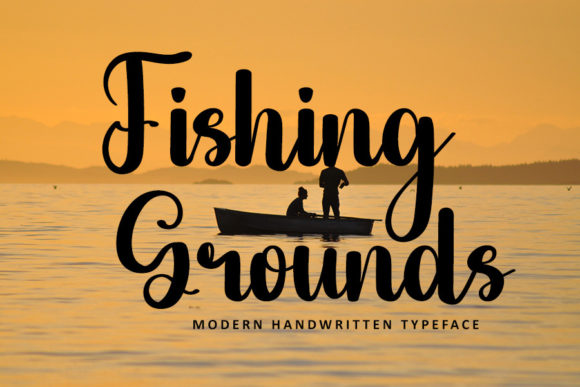
Fishing Grounds Font: Elevate Your Designs with Elegant Handwritten Style
In the world of typography, a font can make or break a design. For crafters, designers, and DIY enthusiasts, finding the perfect font can be a daunting task. However, if you’re looking for a lovely handwritten font that exudes elegance and sophistication, look no further than Fishing Grounds Font. This beautiful font is perfect for a variety of design projects, from product packaging to social media graphics, and is sure to make your work stand out.
The Charm of Fishing Grounds Font
Fishing Grounds Font is a stunning handwritten font that boasts elegant and curvy lines. Its unique charm lies in its ability to add a touch of sophistication to any design project. The font’s flowing lines and delicate curves make it perfect for designs that require a personal and creative touch. Whether you’re working on a branding project, magazine cover, or social media graphic, Fishing Grounds Font is sure to impress.
One of the best things about Fishing Grounds Font is its versatility. This font can be used for a wide range of design projects, including:
- Product Packaging: Add a touch of elegance to your product packaging with Fishing Grounds Font. Whether you’re designing labels, tags, or packaging inserts, this font is sure to make your products stand out.
- Branding Projects: Create a cohesive brand identity with Fishing Grounds Font. Use it for logos, business cards, and other marketing materials to add a touch of sophistication to your brand.
- Magazine Covers: Make your magazine cover design pop with Fishing Grounds Font. This font is perfect for creating eye-catching headlines and titles that will grab readers’ attention.
- Social Media Graphics: Elevate your social media graphics with Fishing Grounds Font. Use it to create engaging posts, stories, and ads that will help you connect with your audience.
- Weddings and Events: Make your wedding or event planning designs extra special with Fishing Grounds Font. Use it to create beautiful invitations, programs, and other stationery.
Why Choose Fishing Grounds Font?
With so many fonts to choose from, why should you choose Fishing Grounds Font? Here are just a few reasons:
- Unique and Elegant: Fishing Grounds Font is a one-of-a-kind font that adds a touch of elegance to any design project.
- Highly Versatile: This font can be used for a wide range of design projects, from product packaging to social media graphics.
- Easy to Read: Despite its elegant and curvy lines, Fishing Grounds Font is highly legible and easy to read.
- Perfect for Creative Projects: If you’re working on a creative project that requires a personal touch, Fishing Grounds Font is the perfect choice.
Tips for Using Fishing Grounds Font
To get the most out of Fishing Grounds Font, here are a few tips:
- Pair it with a Simple Background: Let Fishing Grounds Font be the star of the show by pairing it with a simple background.
- Experiment with Colors: Try out different colors to see what works best with Fishing Grounds Font. Pastel colors, neutrals, and bold brights all pair well with this font.
- Use it for Headlines and Titles: Fishing Grounds Font is perfect for headlines and titles. Use it to create eye-catching text that will grab readers’ attention.
Fishing Grounds Font is a beautiful handwritten font that is perfect for designers, crafters, and DIY enthusiasts. Its elegant and curvy lines make it a versatile font that can be used for a wide range of design projects. Whether you’re working on product packaging, branding projects, or social media graphics, Fishing Grounds Font is sure to make your work stand out. With its unique charm, high legibility, and ease of use, Fishing Grounds Font is a must-have font for any designer or crafter looking to elevate their designs.